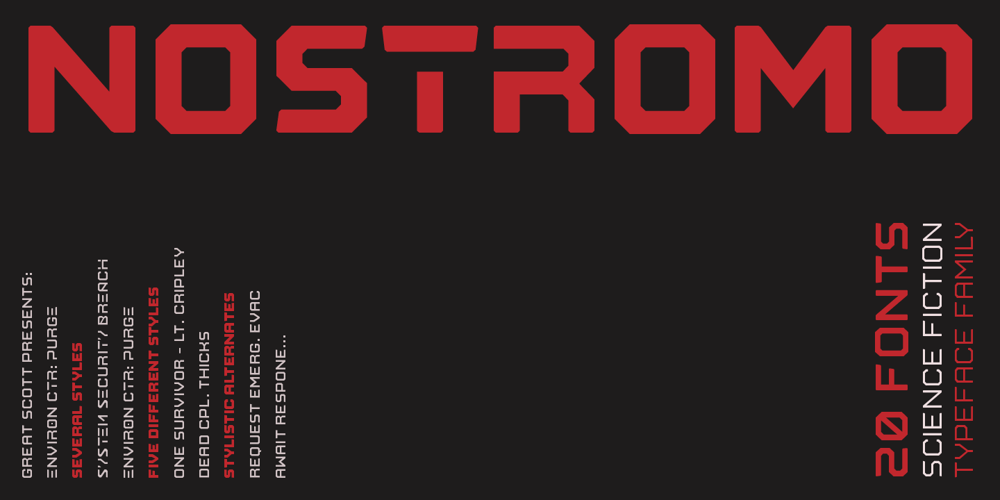
Nostromo Font Family was designed by Daniel Feldt and published by Great Scott. Nostromo contains 20 styles and family package options. Imagine the year 2099 and a merger between two multinational conglomerates dabbling in space colonization and research – maybe Nostromo would be their typeface of choice for branding. Inspired by all-time favourite dirty space movies where it would look natural in a setting with green glowing CRT screens on a rundown and dirty space ship. Nostromo is a futuristic / science fiction display typeface in several weights and styles. Nostromo also comes with stylistic alternatives on several letters.